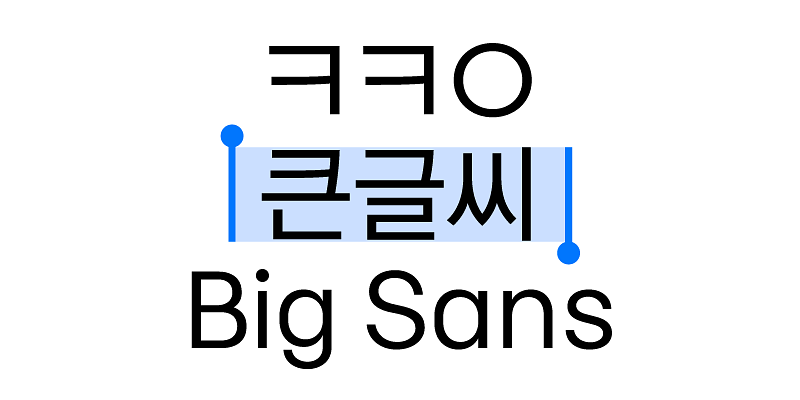
Kakao Big Sans is designed for titles and content that needs emphasis. With open counters and structured, straight strokes, it delivers a solid and highly attention-grabbing appearance.
Kakao values understanding people and imagining a better future together. As part of that vision, we’re introducing a digital typeface that’s easy for everyone to read and use.